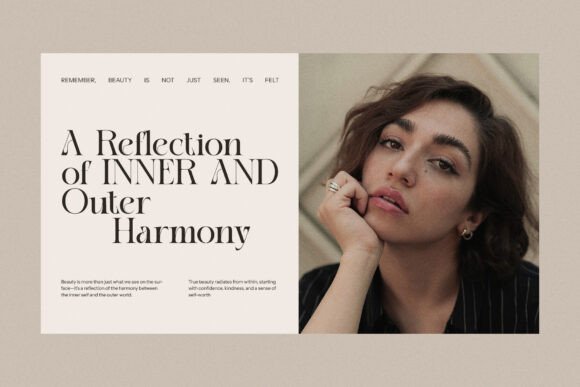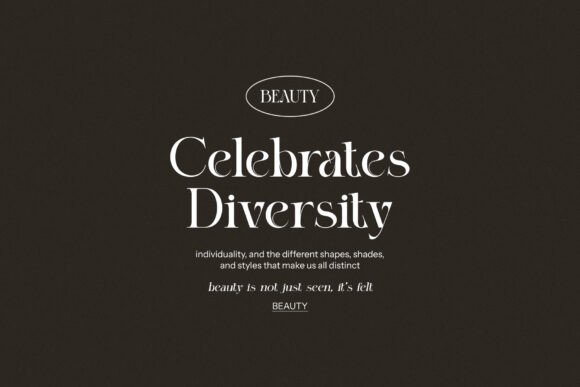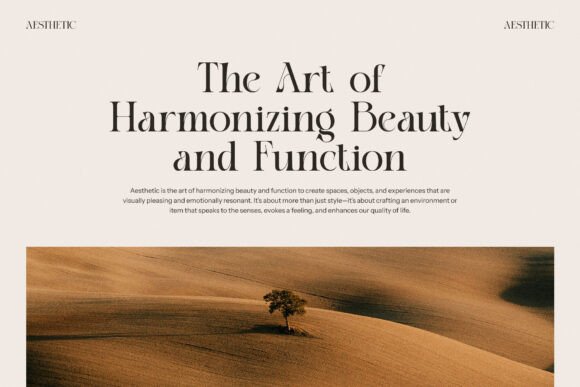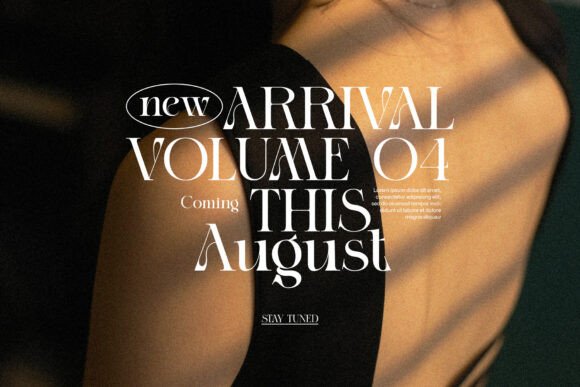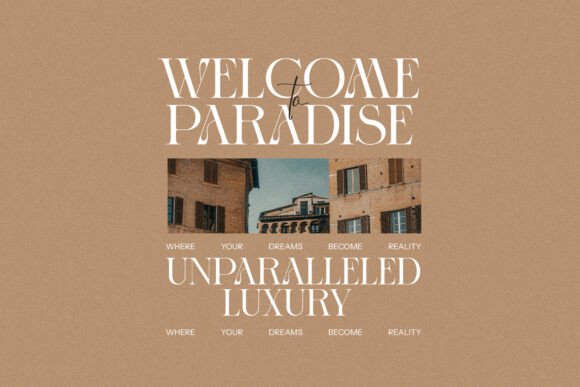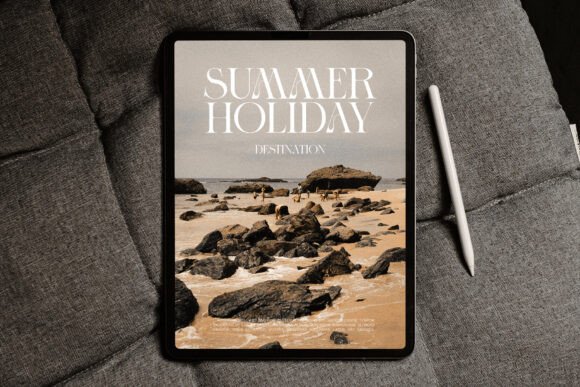
Introduction to Mengka Font Font
Fonts play a crucial role in design, and the Mengka Font font is a typeface that brings both character and versatility to any project. Whether you’re working on a branding project, a website, or a print design, the Mengka Font font offers a unique style that can elevate your work.
Mengka is a modern serif font that combines elegance with readability.
Its clean lines and stylish curves make it perfect for both headlines and body text The font gives a fresh look while maintaining a classic feel, making it ideal for various designs, from websites to printed materials.
Key Features of Mengka Font Font
Why Choose Mengka Font Font?
The Mengka Font font is more than just a typeface – it’s a design tool that helps you communicate your message with style and clarity. Its unique character set and versatile design make it suitable for a wide range of applications, from elegant invitations to bold headlines.
With its carefully crafted letterforms and balanced proportions, the Mengka Font font ensures readability and visual appeal across all mediums.
What makes Mengka Font font special?
The Mengka Font font stands out with its unique design, exceptional readability, and versatility across various design applications.